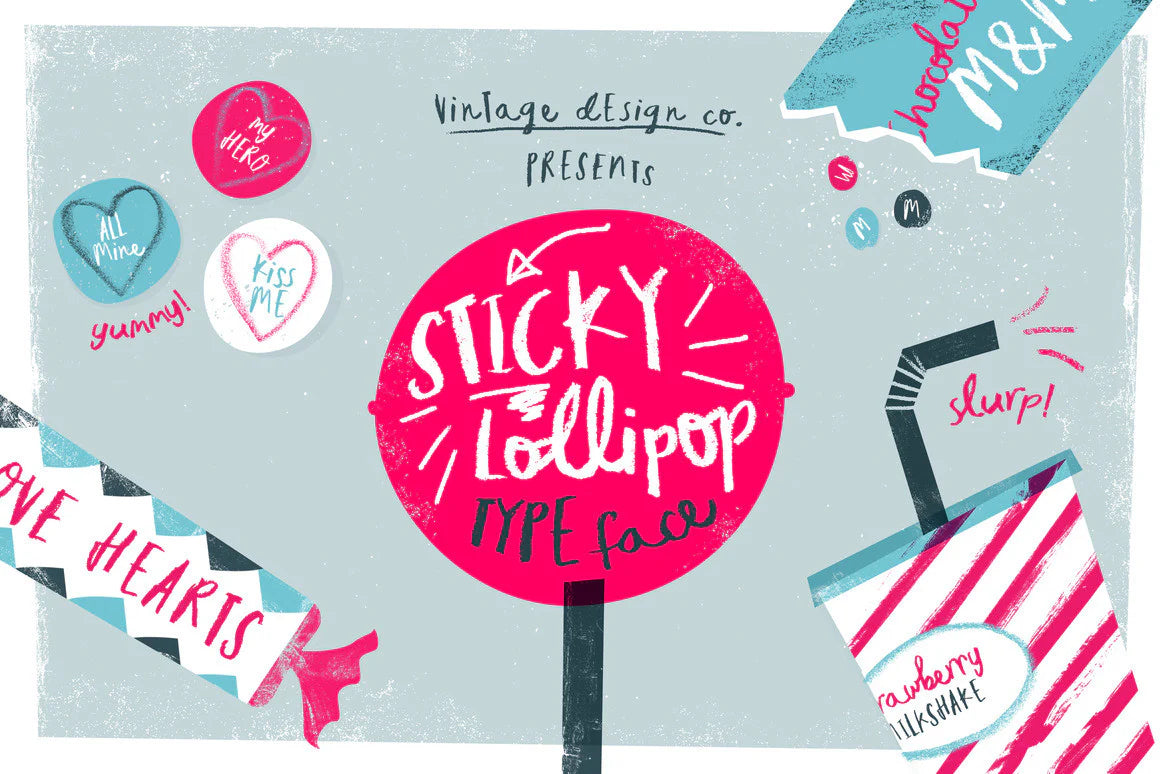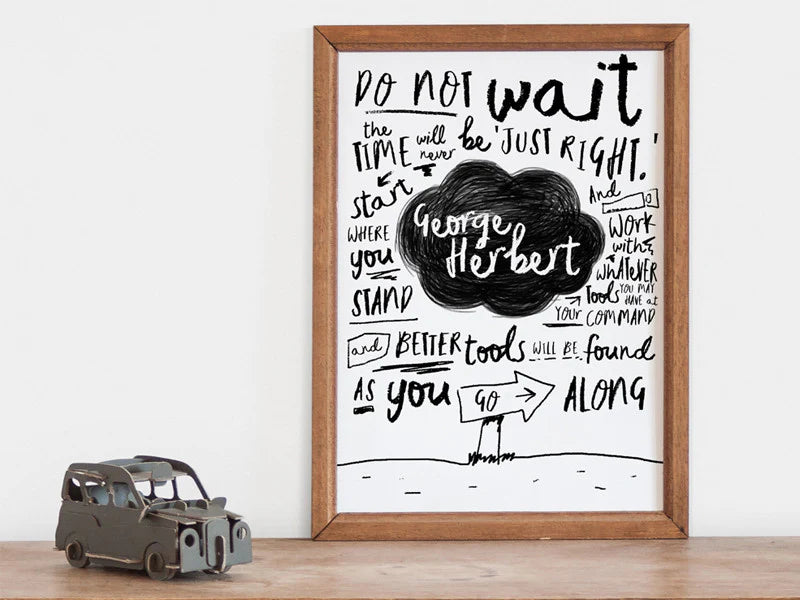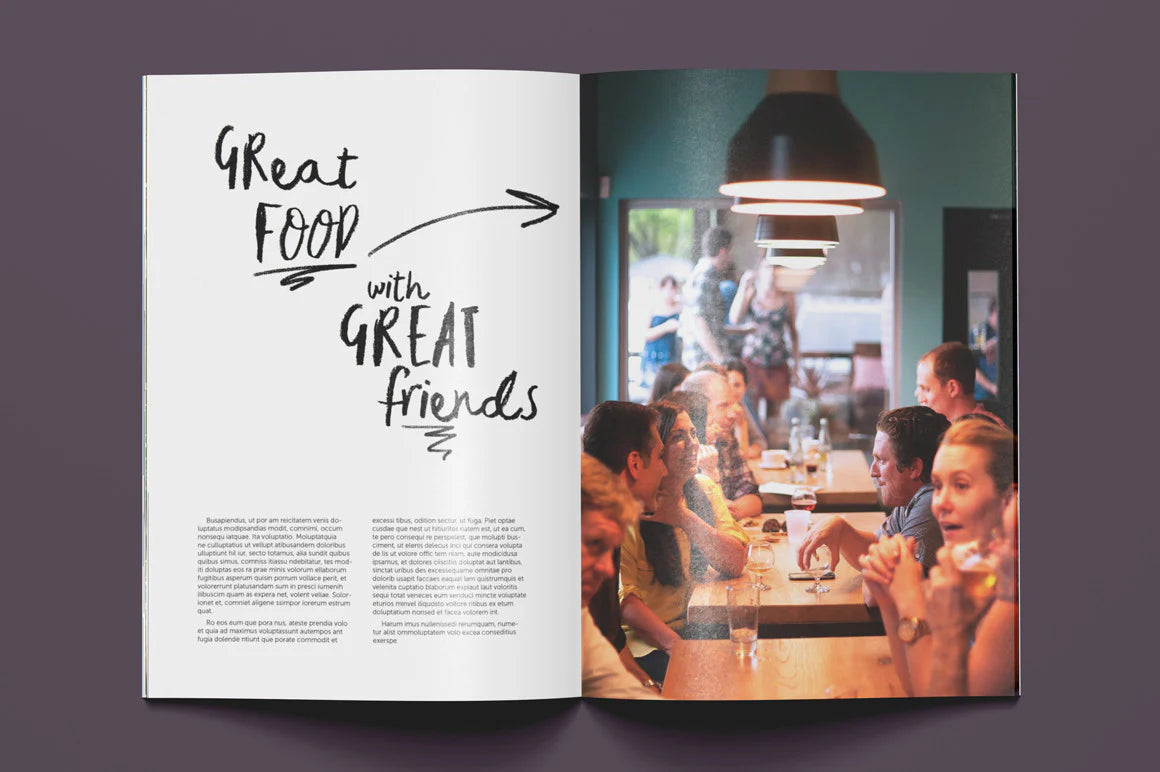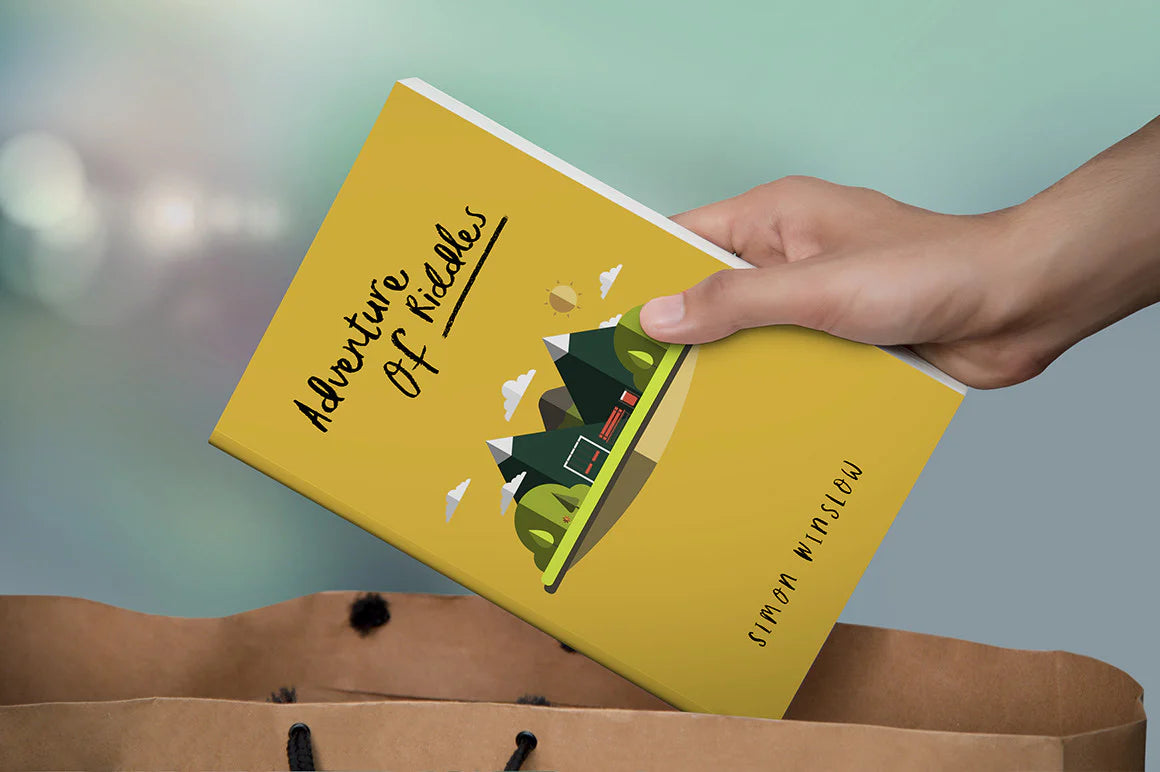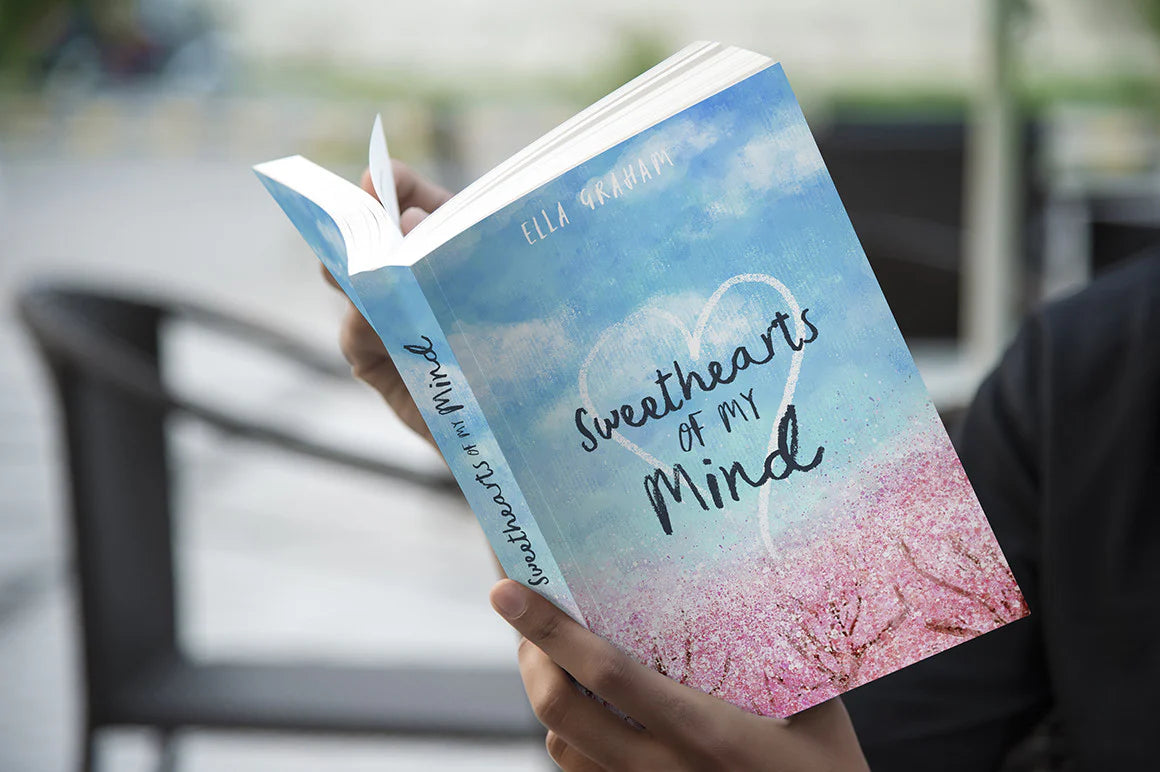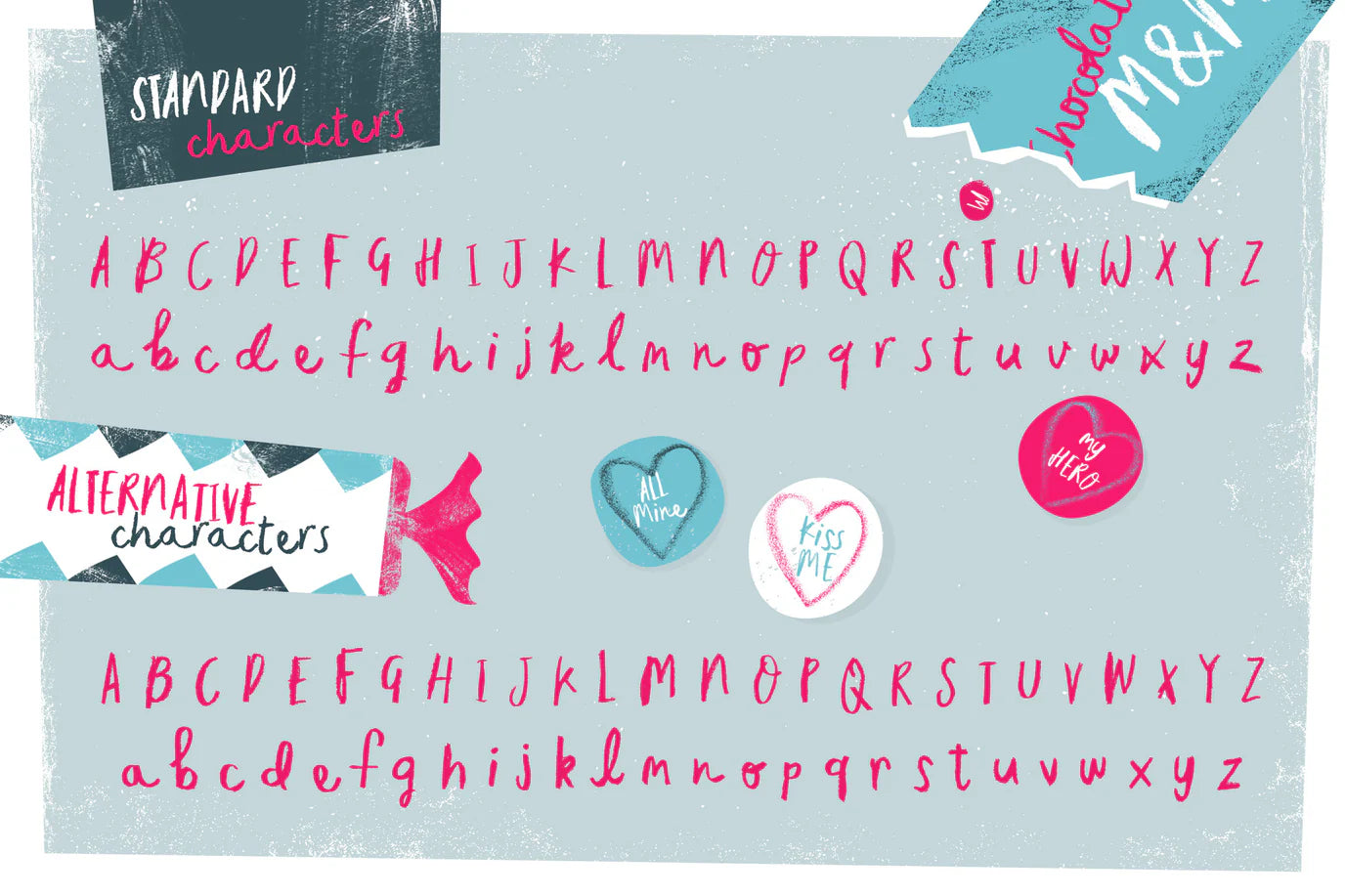
Sticky Lollipop
Sticky Lollipop a hand written typeface complimenting inky style illustrations.
Using a vintage chinagraph pencil which I found stash away at my grandparents house. This gives a unique waxy look to the lettering, with varying weight and texture.
Includes alternative characters accessed by the glyphs panel in your favorite editing program.